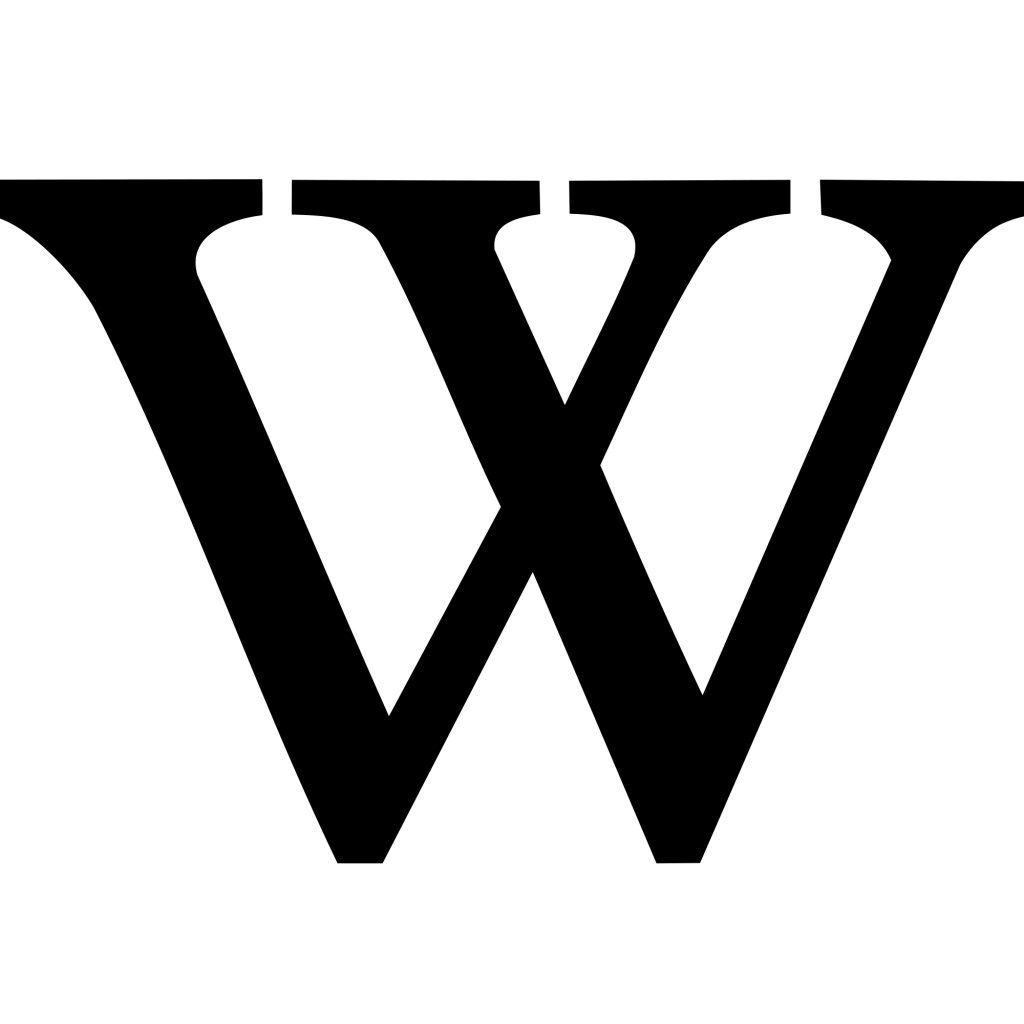
What Font Has A Crossed W
What Font Has A Crossed W. You can customize your experience with live font previews. I need a default monitor font with a slashed zero but all font maps only show abc.
Some Use The System To Find A Specific Font Missing From The Sources Sent By The Client Or Just Because They See A Nice Font And Want To Know What Font Is This.
Their softness tends to make them feel friendly and inviting. The vertex of the uppercase 'w' comes to a point: The most obvious characteristic is the w with crossed central vertex.
Since That Is A Logo, I Would Very Much Assume That E Was Slanted Manually.
Some People Call This Style Of Type Old English, Or Gothic, But Both Of Those Terms Are Used For Other Things (See The Century Gothic Font Above), So We'll Stick With Blackletter.